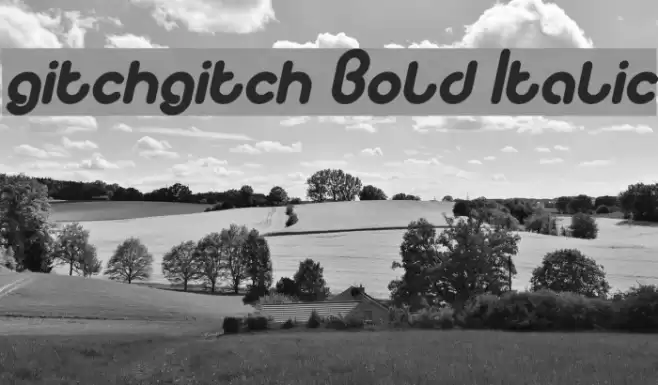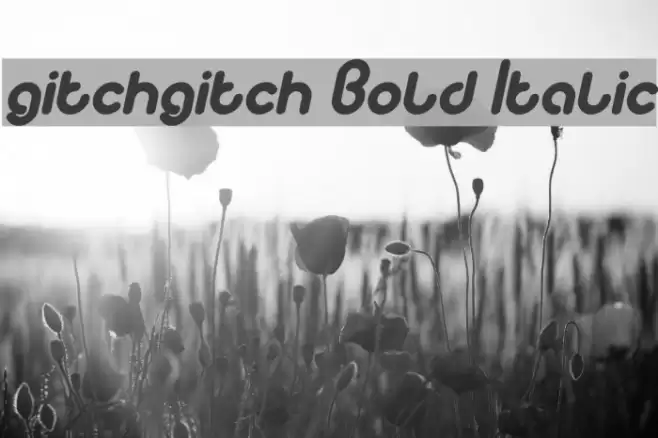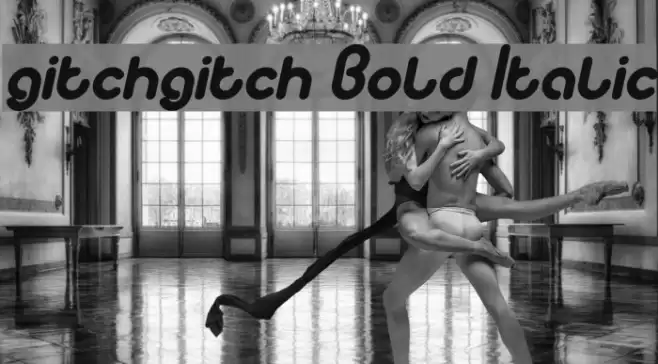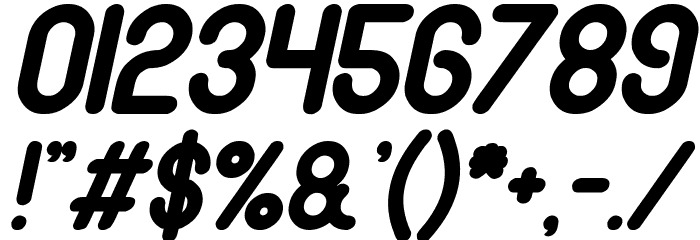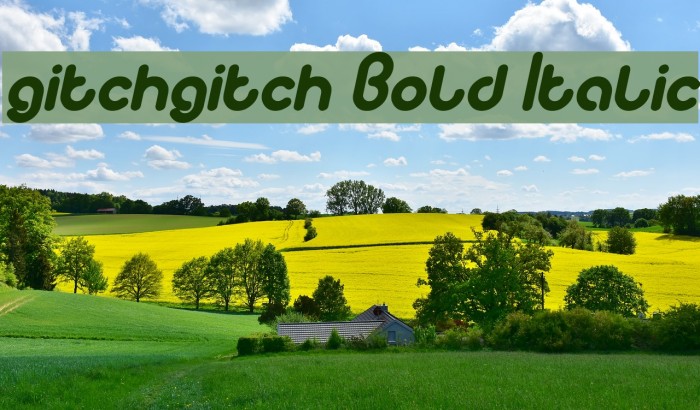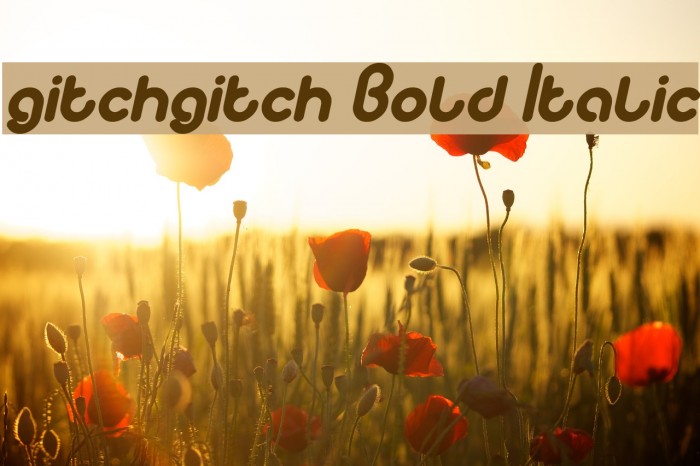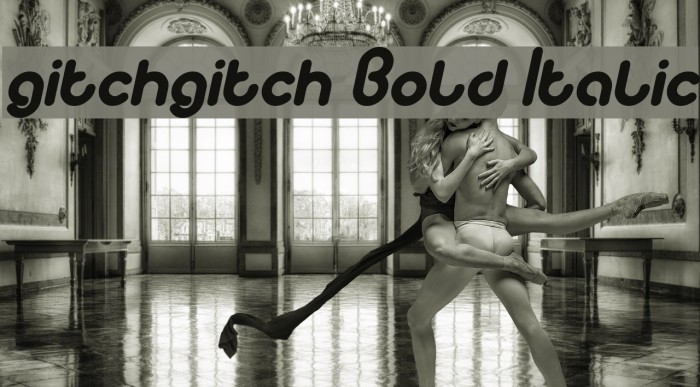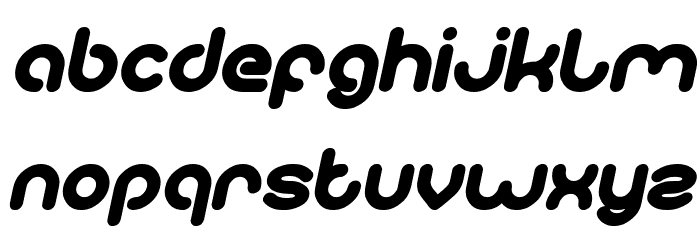
gitchgitch Bold Italic Font
gitchgitch Bold Italic Description
This font features a bold and italicized style with rounded edges and smooth curves, giving it a playful and modern appearance. The uppercase and lowercase letters maintain a consistent flow, with a slight slant that enhances its dynamic look. The numerals are equally bold, ensuring visibility and readability. Special characters are designed to match the overall aesthetic, making them suitable for various creative applications. The font's thick strokes and rounded forms contribute to its friendly and approachable vibe, making it ideal for projects that require a touch of personality and flair.
A bold, italicized font with rounded edges and a playful, modern style from Uncategorized fonts.
- Proposed Projects: Ideal for branding, advertising, posters, and any project requiring a bold, modern touch.